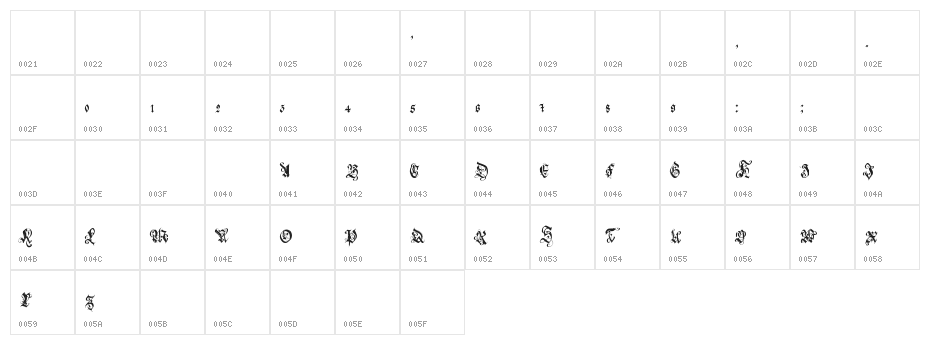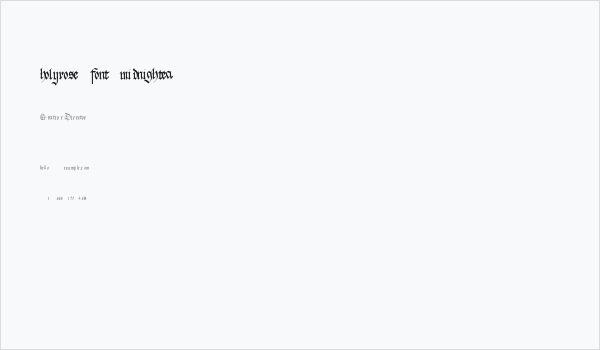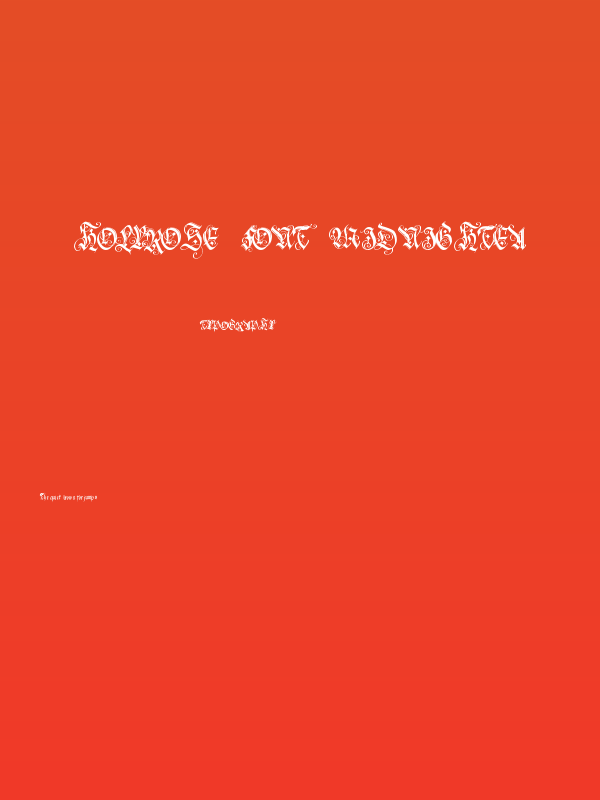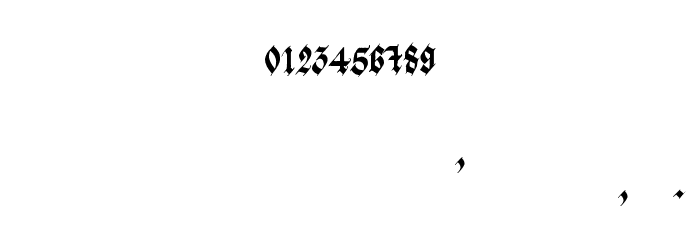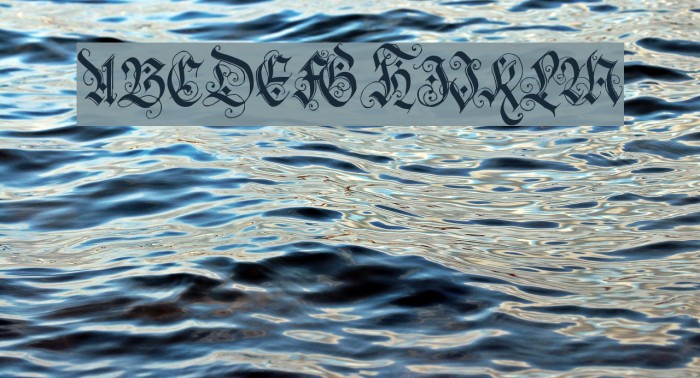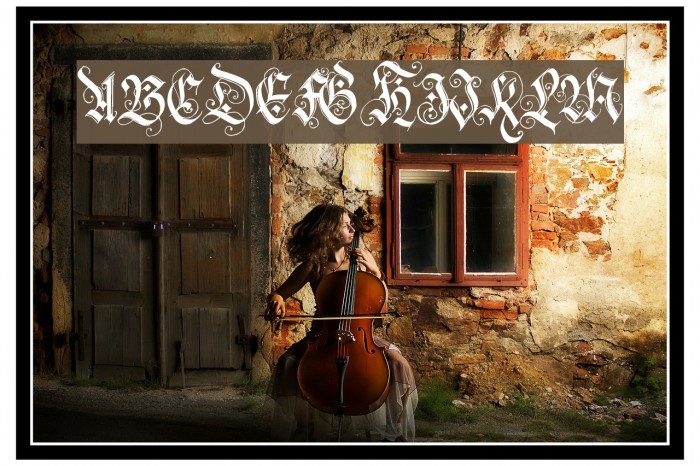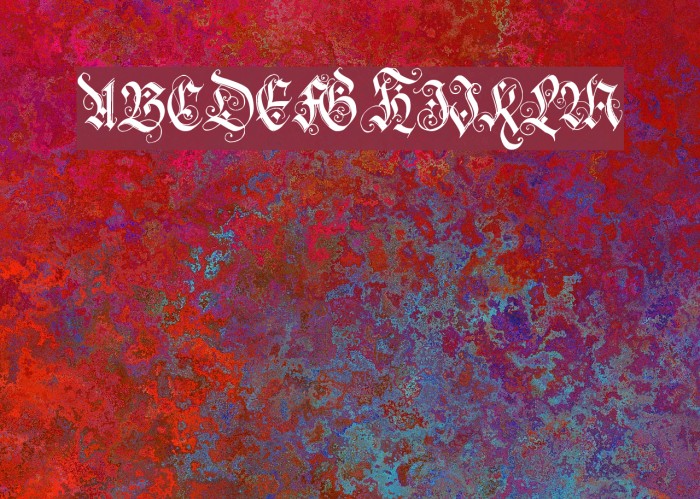
holyrose-font-midnightea Font
holyrose-font-midnightea Description
This font exhibits a highly decorative and intricate style, reminiscent of traditional Gothic or Blackletter typefaces. Each character is adorned with elaborate flourishes and ornate details, giving it a medieval and historical appearance. The uppercase letters are particularly embellished, with swirling extensions and pointed serifs that enhance the dramatic effect. The lowercase letters maintain a consistent style, though they are slightly less ornate, ensuring readability while preserving the overall aesthetic. The numerals and special characters follow the same decorative theme, integrating seamlessly with the alphabet. This font's unique style makes it suitable for projects that require a touch of elegance and historical flair.
| Use Case | Logos, Headlines, Decorative text |
| Proposed Projects | Ideal for historical-themed designs, wedding invitations, book covers, and branding that requires a classic and elegant touch. |